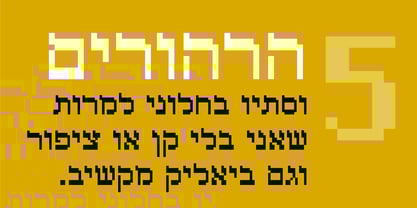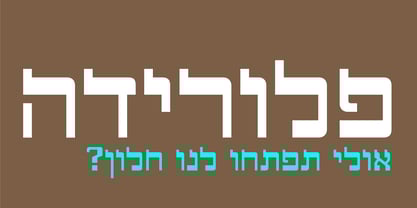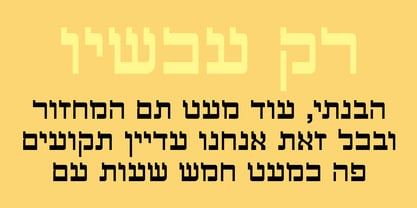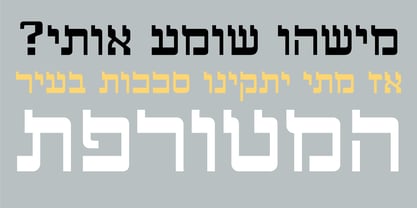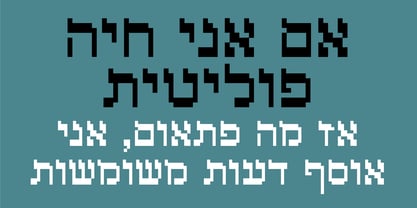
Eilat
by Masterfont
The Eilat Font Family was designed by Udi Oher and published by Masterfont. Eilat contains 2 styles and family package options. More about this family
This calligraphic geometric follows the traditional Hebrew type by intensive and free hand drawn lines. The pixelate style makes it a great companion to get the computerized look you are looking for. Wide, Headlines, Rough, Urban, Emboss, cutting edge, Futuristic, Industrial. This typeface was the early screen font used as bitmaps in the days of the rise of the Mac.
Designers: Udi Oher
Foundry: Masterfont